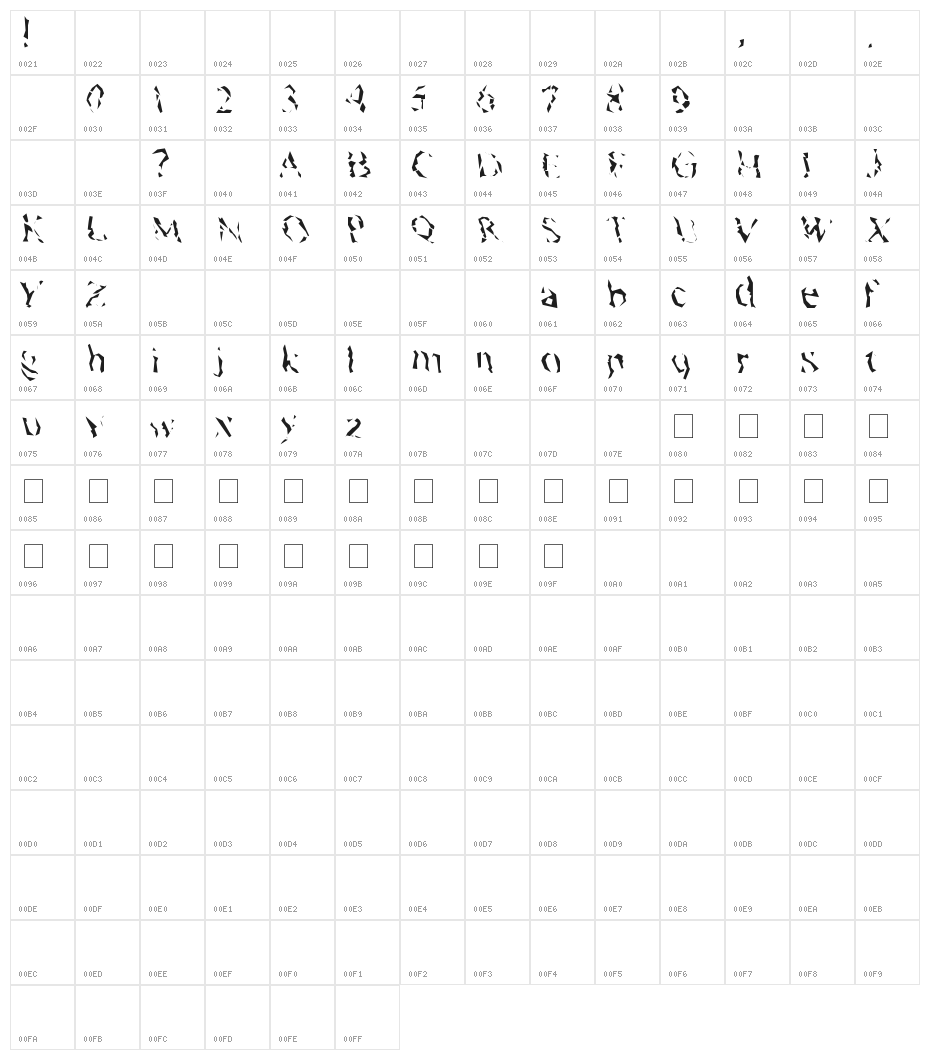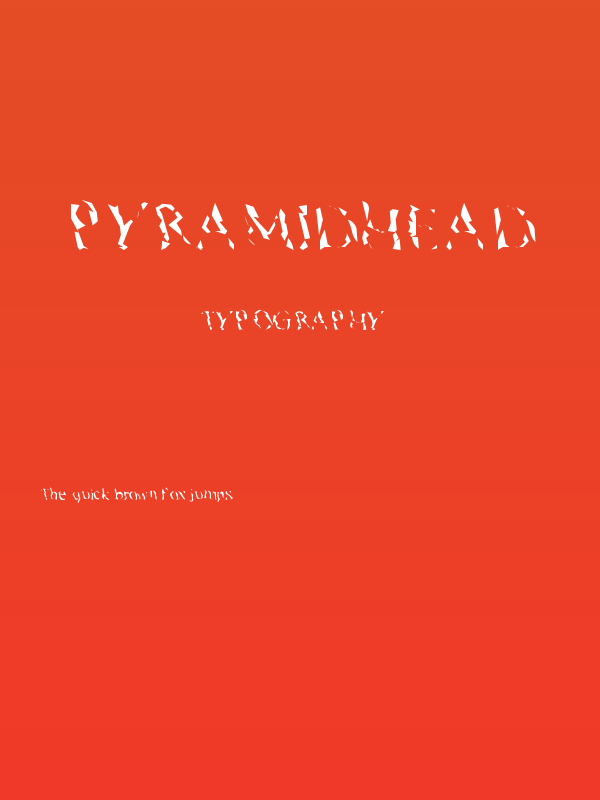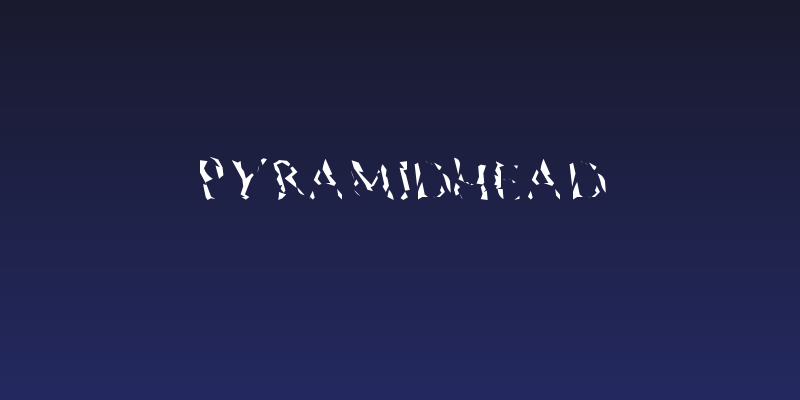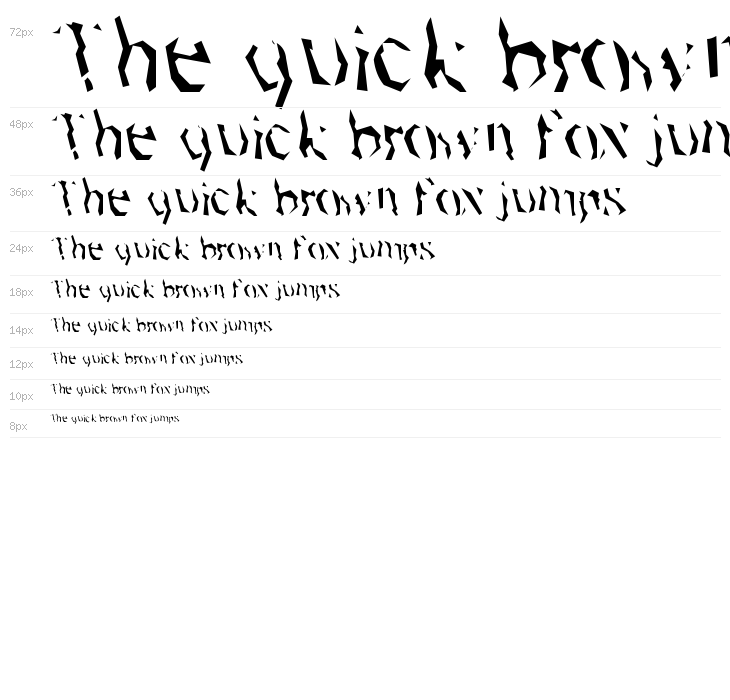
Pyramidhead Font
Pyramidhead Description
This font features a highly decorative and fragmented style, reminiscent of shattered glass or jagged edges. Each character is composed of sharp, angular shapes that create a dynamic and edgy appearance. The uppercase and lowercase letters maintain a consistent theme of broken, irregular forms, giving the font a chaotic yet artistic look. The numbers and special characters follow the same design principles, ensuring uniformity across all elements. This font is ideal for projects that require a bold, artistic statement, such as posters, album covers, or branding for edgy or alternative products.
| Proposed Projects | Ideal for posters, album covers, edgy branding, and artistic projects. |